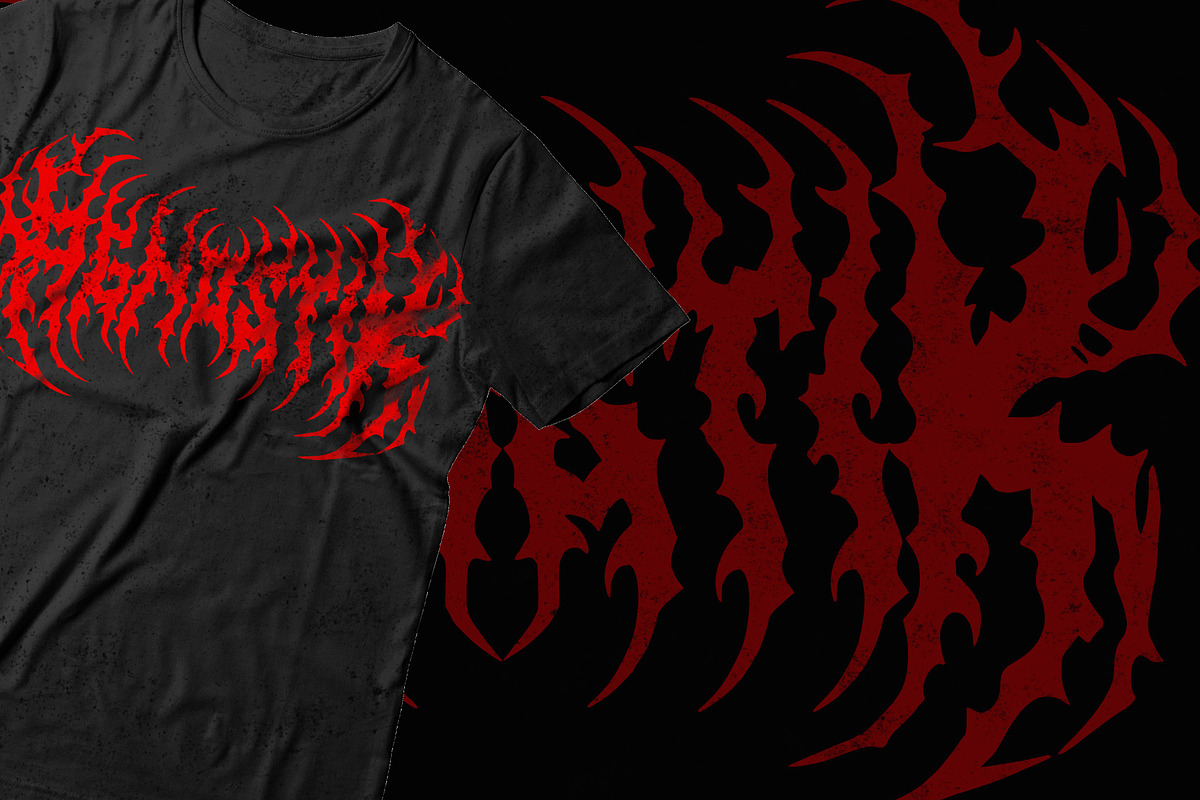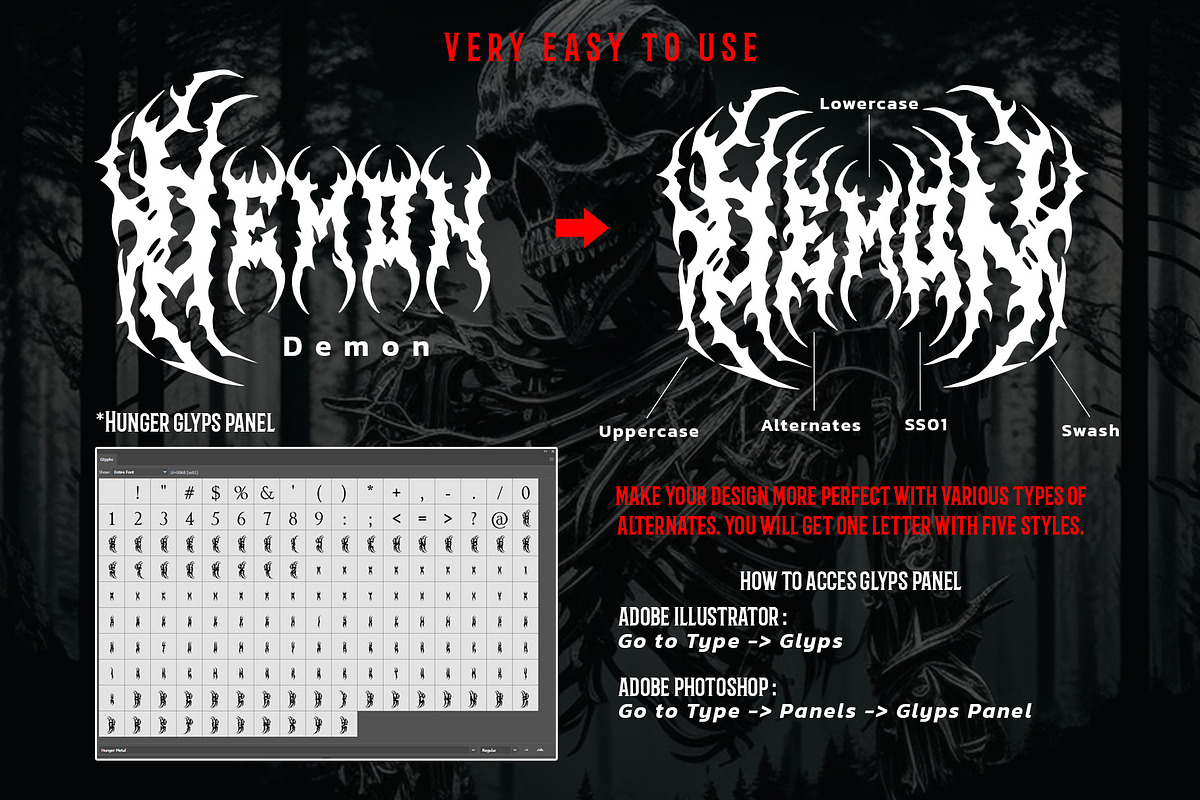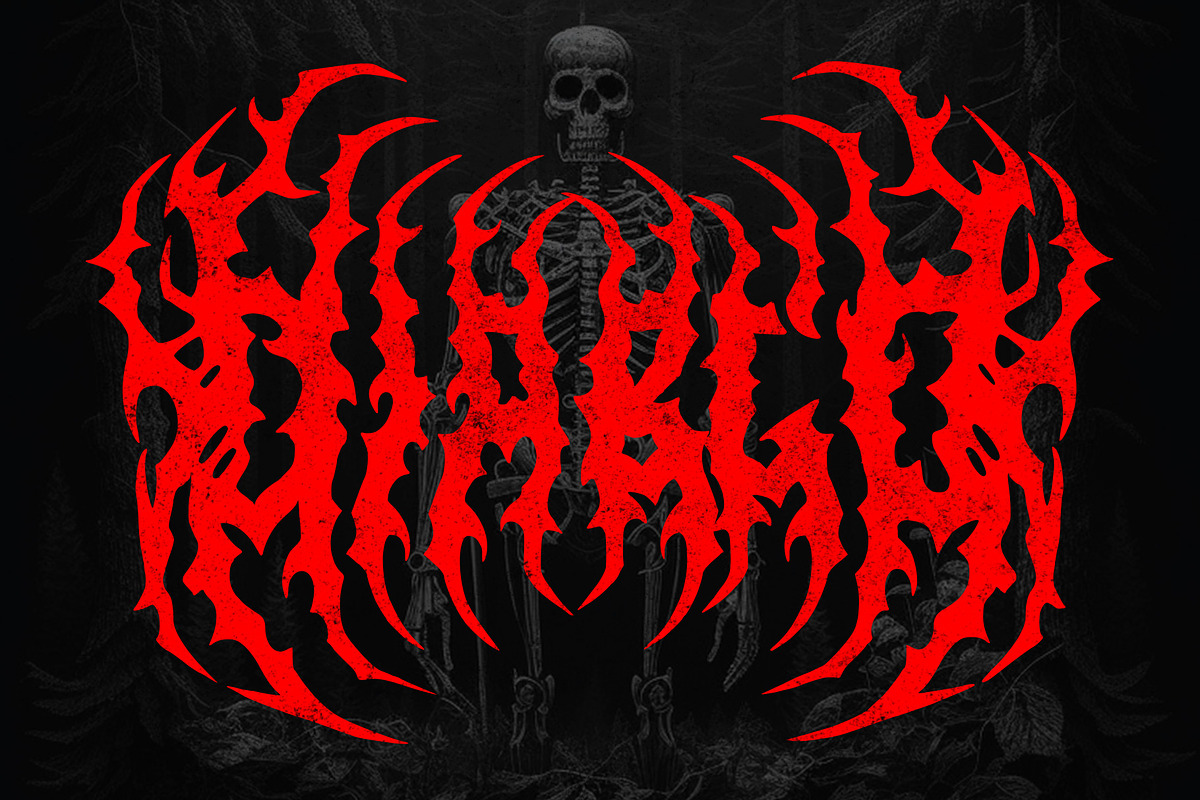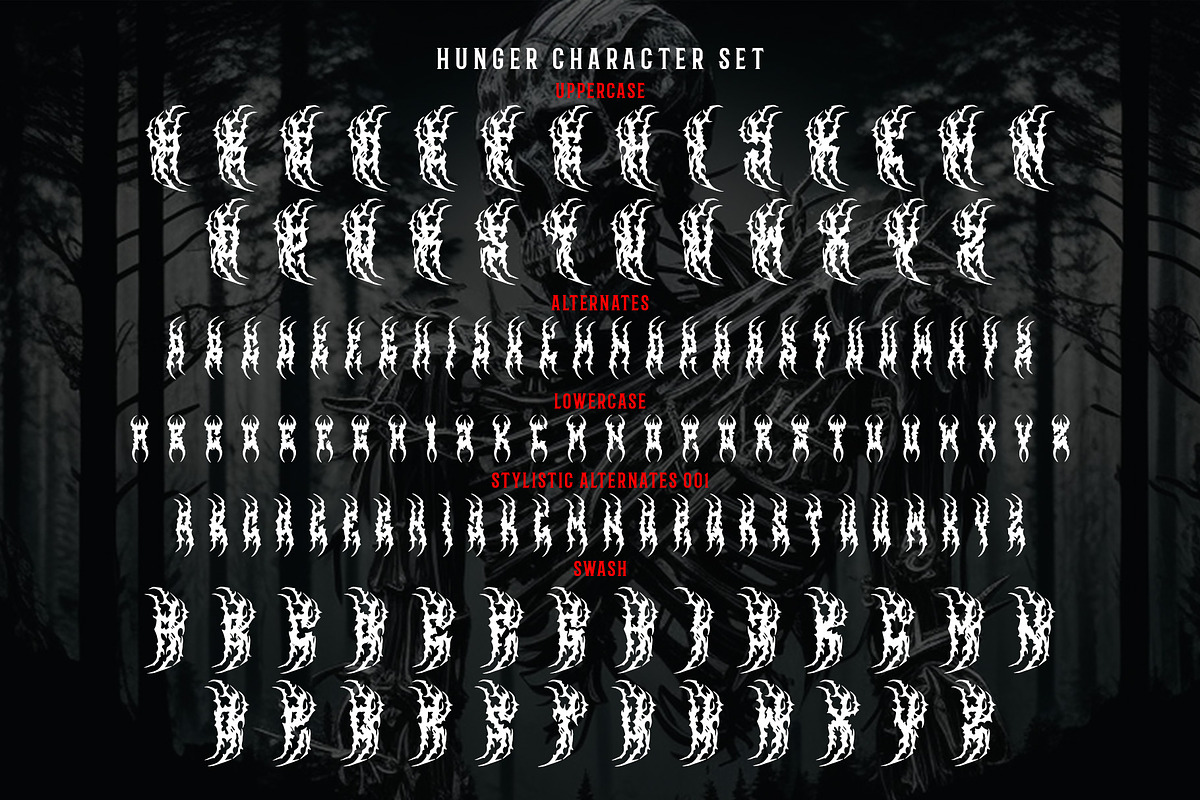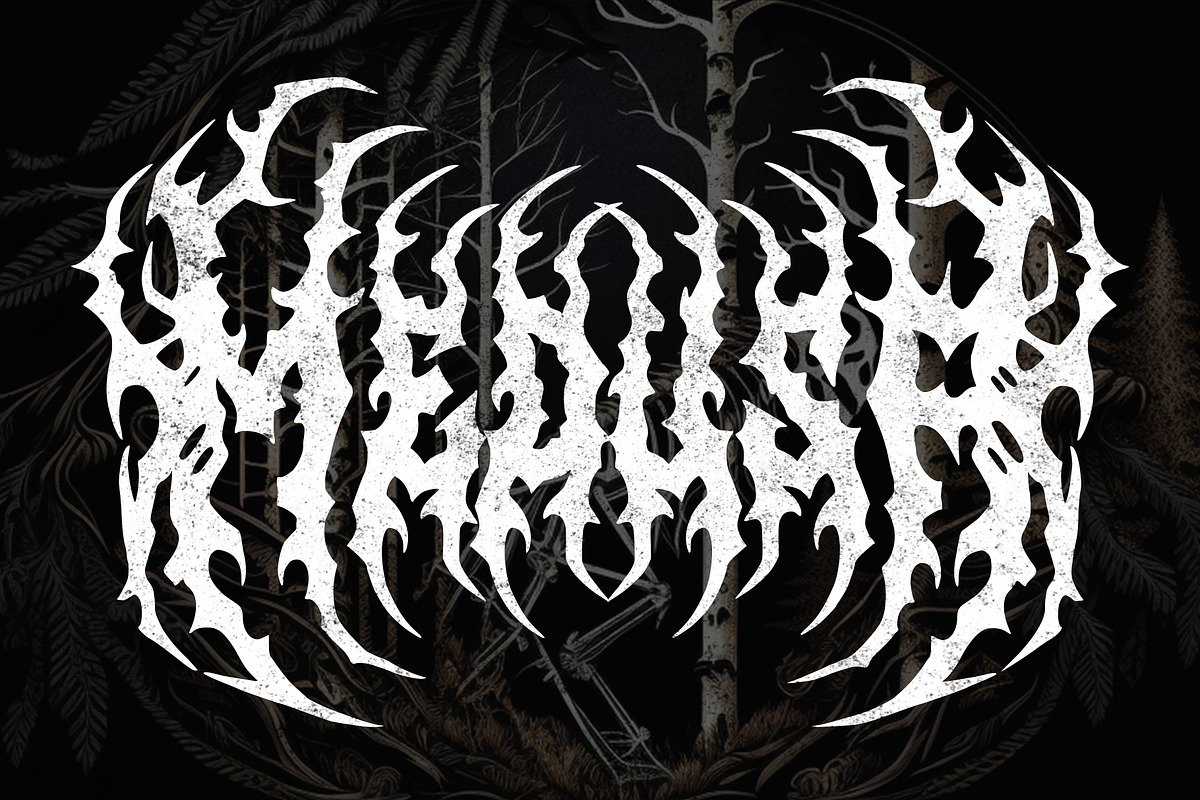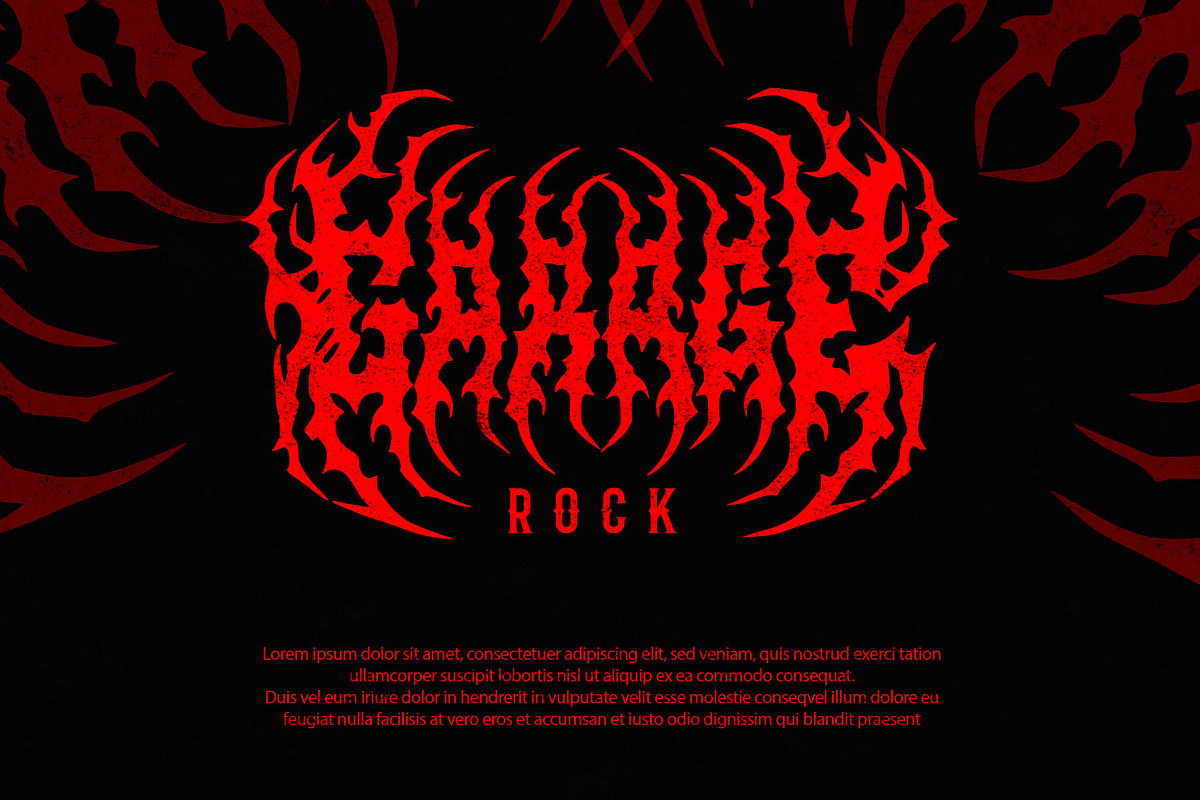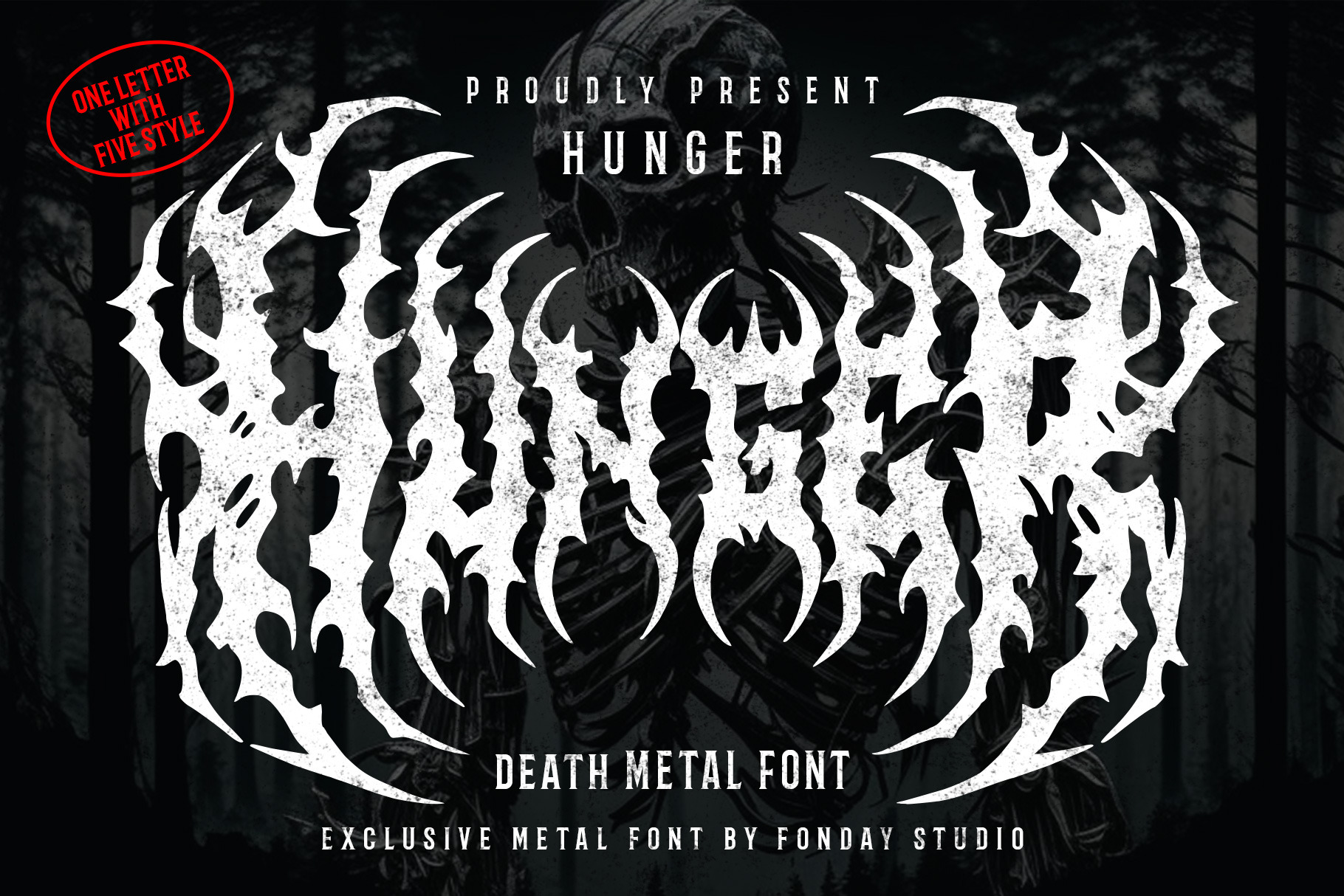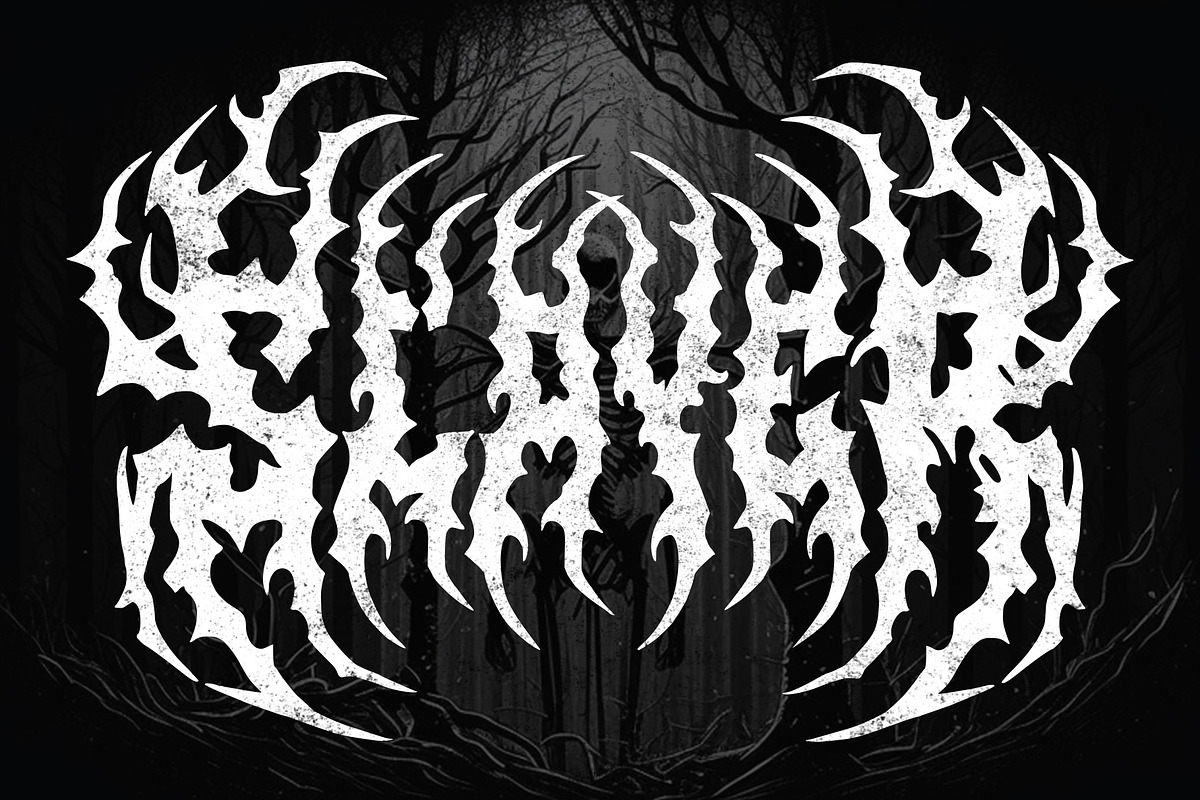
HUNGER - Death Metal Font
Introducing Hunger Metal, our bold and aggressive font that's perfect for capturing the raw energy of metal music. With its sharp and edgy design, Hunger Metal is ideal for creating designs that reflect the intensity and power of metal bands. This font has 5 styles in one letter which makes it easy for you to be creative with this font. This font is perfect for your metal band Logo, T shirt Design, Poster, Tattoo and many more.
- All Caps Character
- Stylistic Alternate